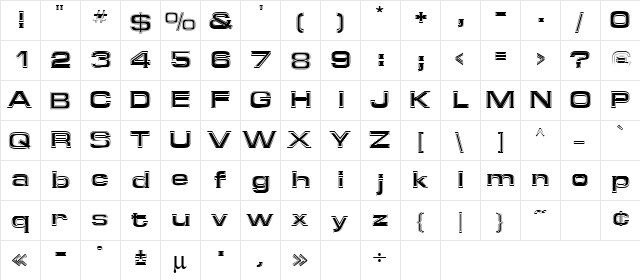
Federation Regular Font Preview
Federation Regular
Federation Regular Font Details
Design Context for Federation Typeface
Federation is a composed and adaptable typeface that performs quietly and consistently across a wide range of design contexts.